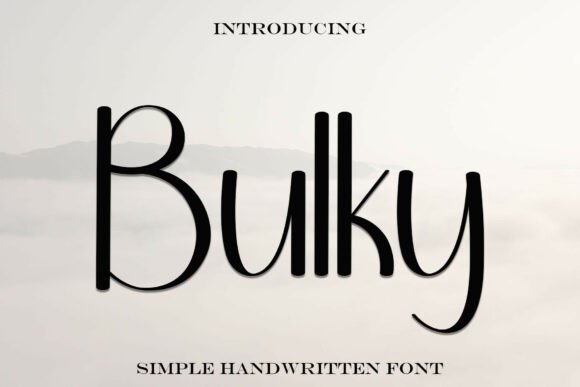
The Bulky Font: Elevate Your Designs with Elegance and Class
I’ll never forget the time I was working on a wedding invitation project, and my client asked for a font that exuded elegance and sophistication. I scoured the internet, trying out font after font, but nothing seemed quite right. That was until I stumbled upon Bulky – a trendy handwritten font that instantly caught my eye. With its contemporary atmosphere and impeccable form, inspired by timeless classic calligraphy, Bulky added a touch of luxury to my design that I knew my client would love.
An Honest Review of Bulky Font
What I Love About Bulky ✨
• ✅ Its unique blend of traditional calligraphy and modern flair makes it perfect for a wide range of design projects, from wedding invitations to branding materials.
• ✅ The font’s impeccable form and elegant lines make it easy to read, even at smaller sizes.
• ✅ Bulky’s versatility allows it to be used for both headings and body text, making it a great addition to any designer’s font library.
While Bulky is an exceptional font, there are a few things to keep in mind. For example, some of the more intricate glyphs can be a bit finicky when it comes to kerning. Additionally, the font’s stylistic alternates can take some getting used to, but with a little practice, you’ll be able to make the most of this feature.
• 🤔 Some users may find the font’s reliance on OpenType features to be a bit limiting if they’re not familiar with how to access these features.
The Story Behind Bulky Font
Bulky was designed by a team of creatives who wanted to create a font that combined the timeless elegance of classic calligraphy with the modernity of contemporary design. Inspired by traditional copperplate engraving, Bulky features impeccable lines, elegant curves, and a sophisticated atmosphere that’s perfect for a wide range of design applications.
Font Name Bulky Font
Author putrasyahreza00
Q: What type of projects is Bulky best suited for?
Bulky is a versatile font that can be used for a wide range of projects, including wedding invitations, branding materials, advertising, and more.
Q: Is Bulky a difficult font to read?
No, Bulky is designed to be easy to read, even at smaller sizes. Its elegant lines and classic letterforms make it perfect for use in both headings and body text.